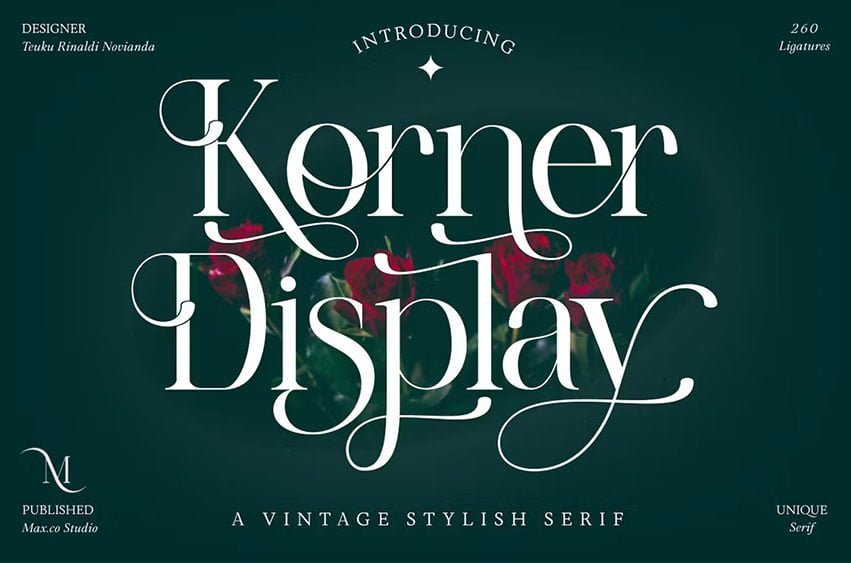
Korner Display Font is a vintage stylish serif font with a unique alternates and ligatures, a high contrast and light font perfect for feminine logo signs, fashion heads & editorial designs, branding projects, Clothing Branding, packaging, magazine headings, advertising, T-shirts, postcards and much more.
Korner Display features 850 glyphs. 202+ alternates characters, 260+ ligatures and multiple language support.